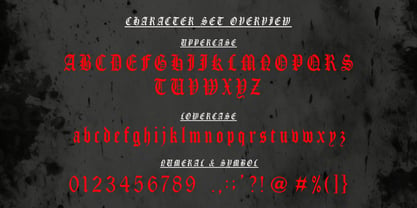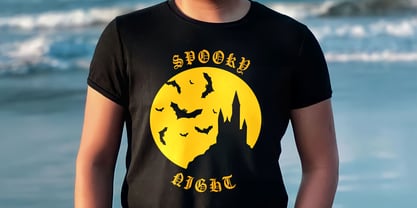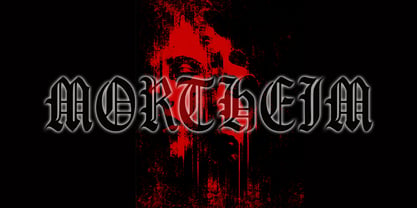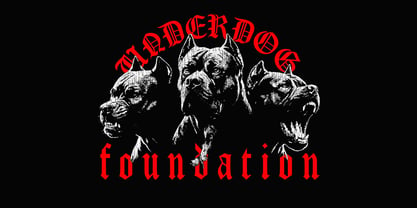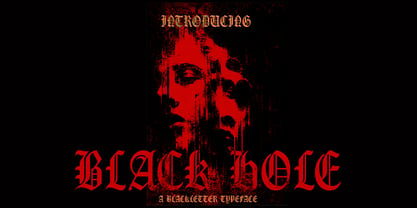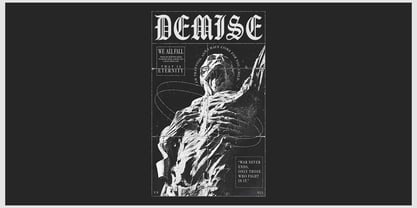
Demise
Die Schriftfamilie Demise wurde von Nur Hasan entworfen und von Reyrey Blue Std veröffentlicht. Demise enthält 1 Stile. Mehr über diese Familie
Demise is a striking blackletter display font inspired by classic Gothic typography, medieval lettering, and dark underground aesthetics. Featuring bold, dramatic letterforms with sharp curves and ornamental details, Demise creates an intense and mysterious visual impact.
Designed for powerful headlines and expressive display work, Demise is perfect for heavy metal logos, rock and alternative music artwork, album covers, streetwear, tattoo designs, posters, branding, book covers, dark fantasy projects, and gothic-themed graphics.
Its distinctive blackletter style combines an old-world medieval character with a bold contemporary edge, making Demise an excellent choice for designers looking to create artwork that feels dark, rebellious, dramatic, and unmistakable.
Demise is ideal for:
• Gothic & Blackletter Branding
• Heavy Metal & Rock Logos
• Album & Music Covers
• Streetwear & Apparel
• Tattoo Designs
• Posters & Flyers
• Book & Magazine Covers
• Dark Fantasy Artwork
• Medieval & Occult-Inspired Designs
• Labels, Badges & Merchandise
• Social Media Graphics
• Logo & Title Design